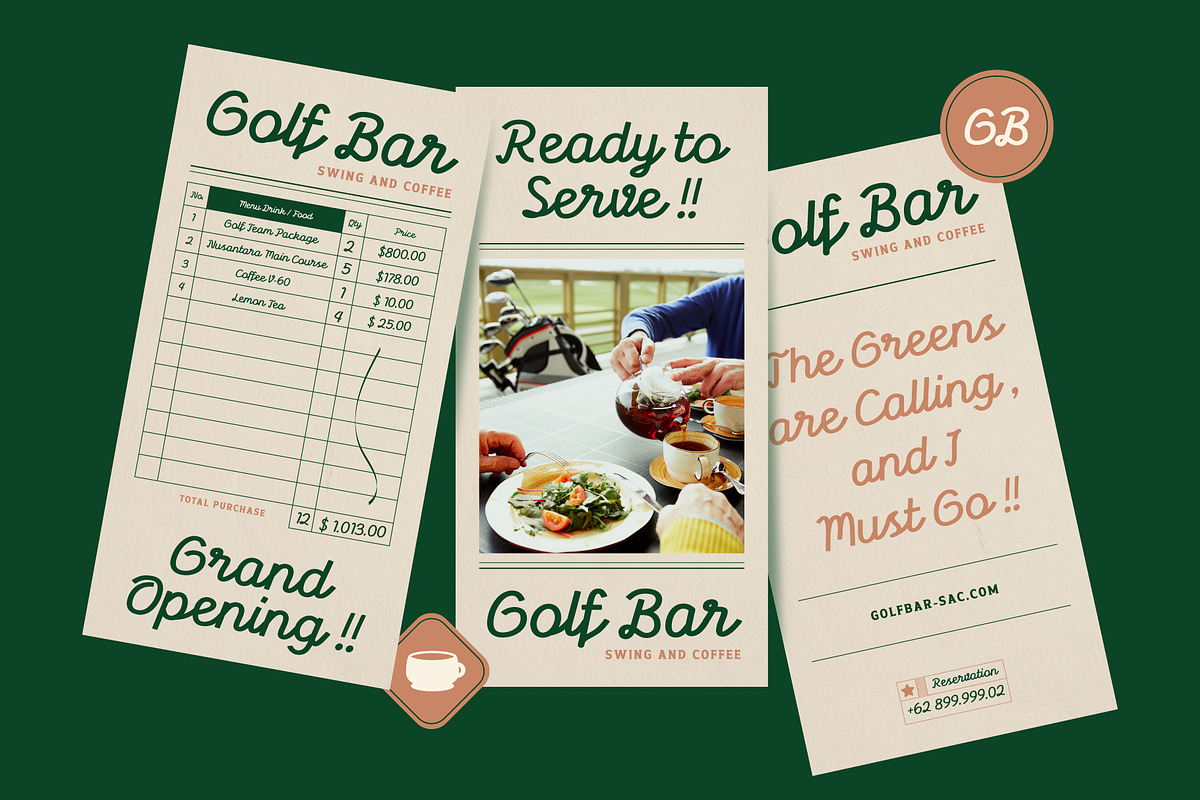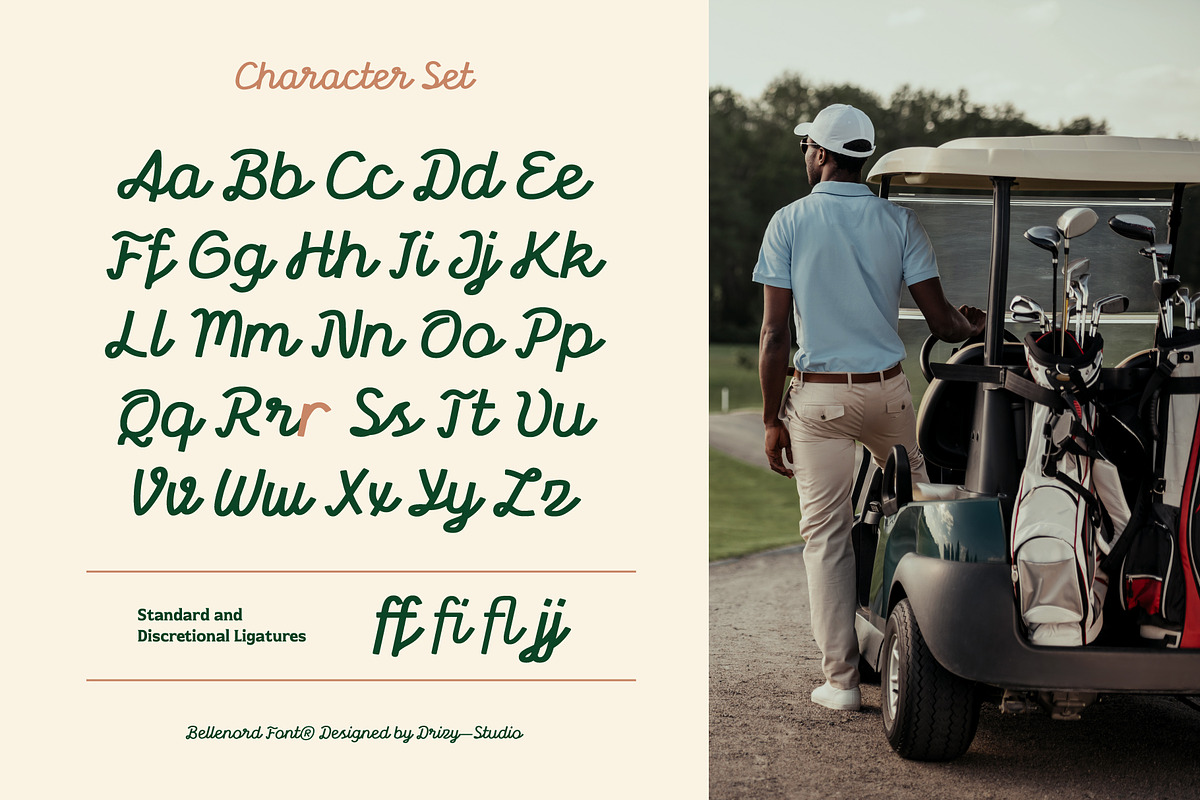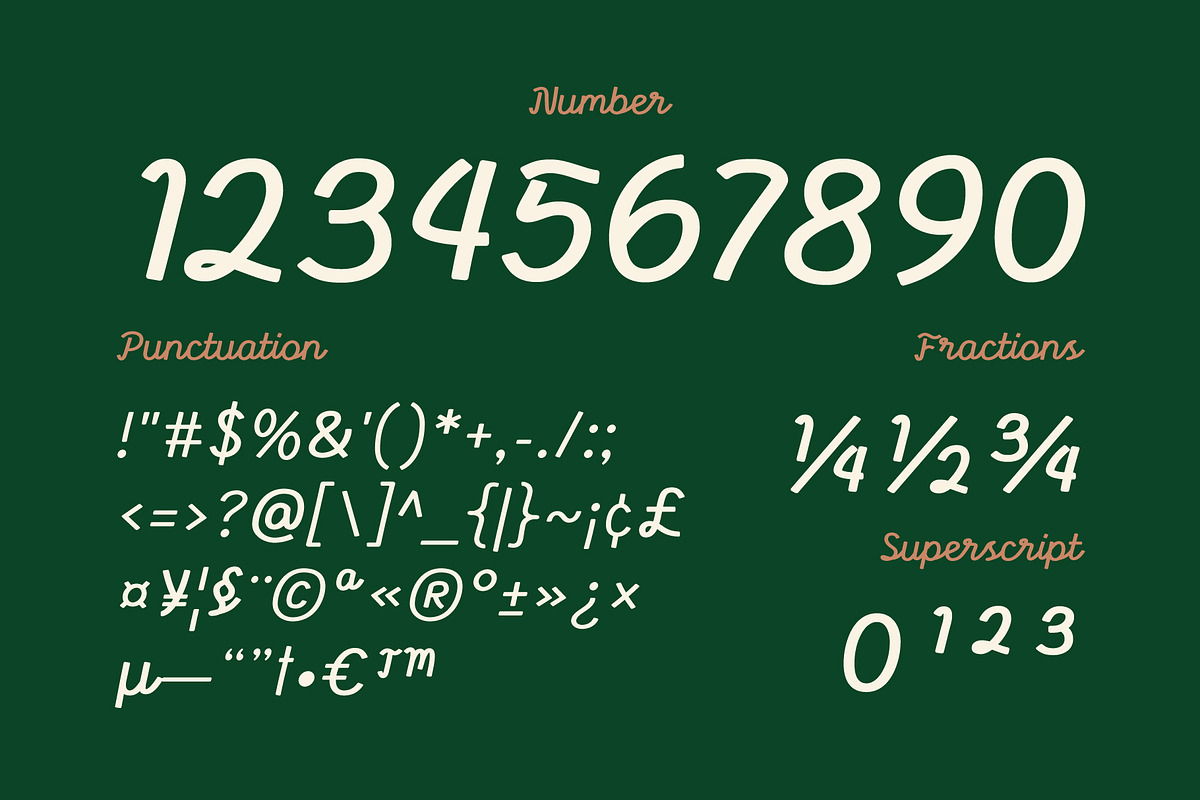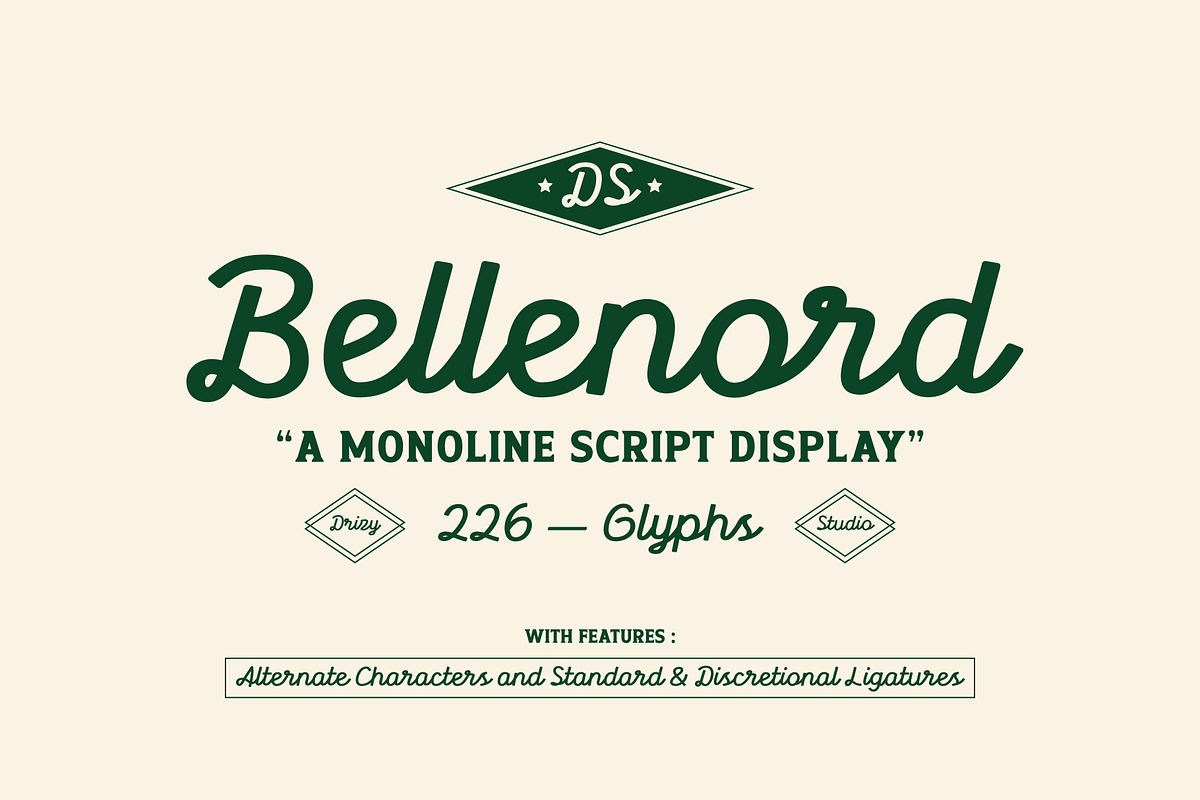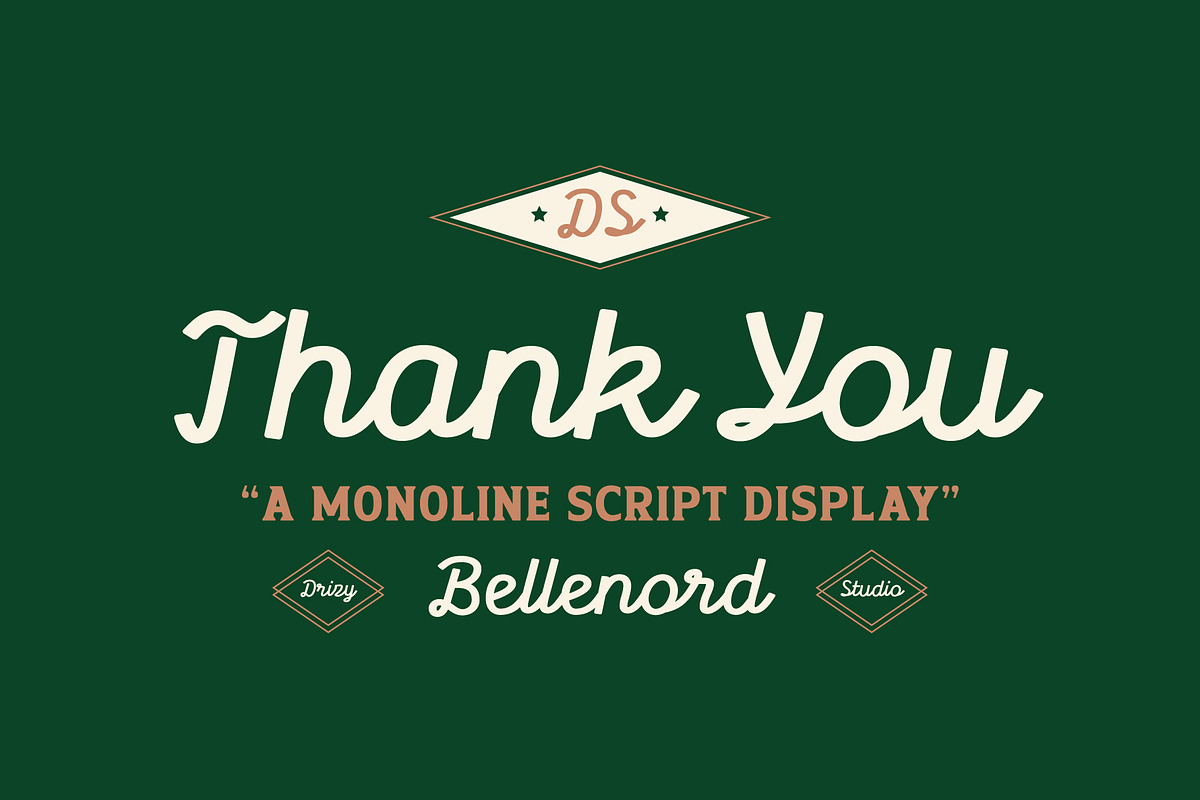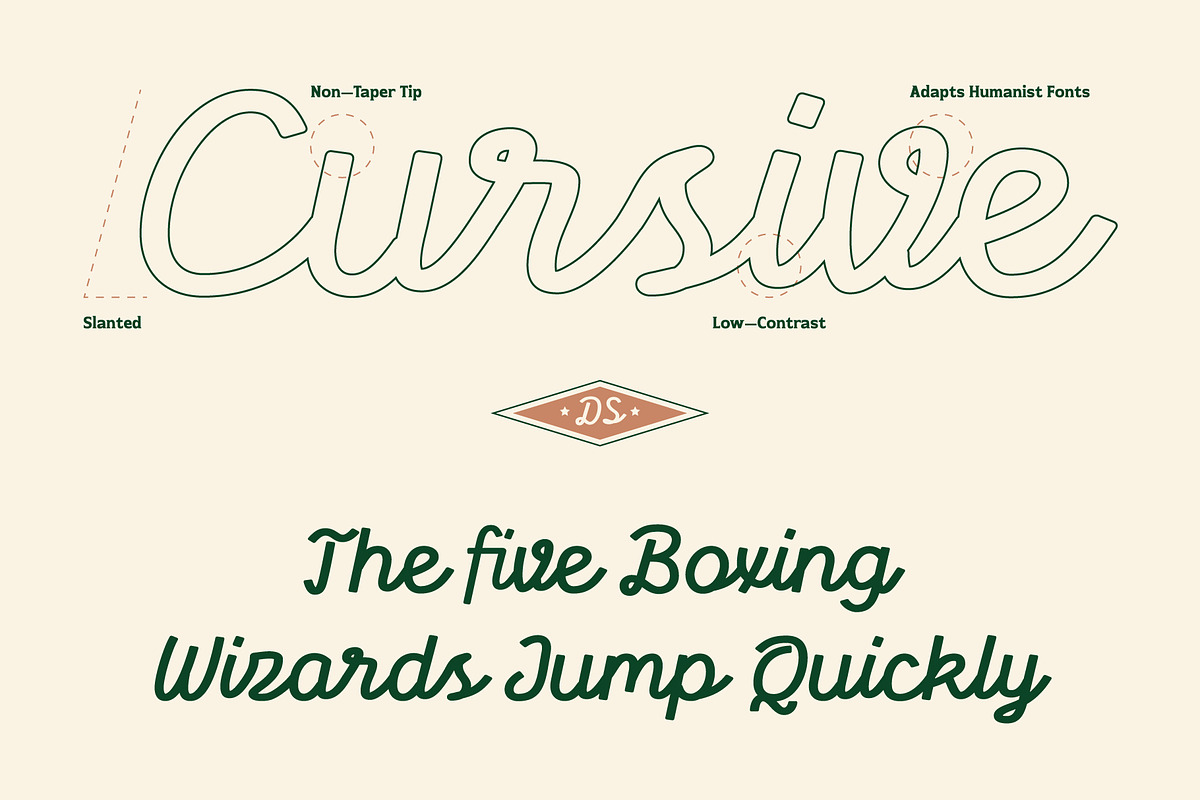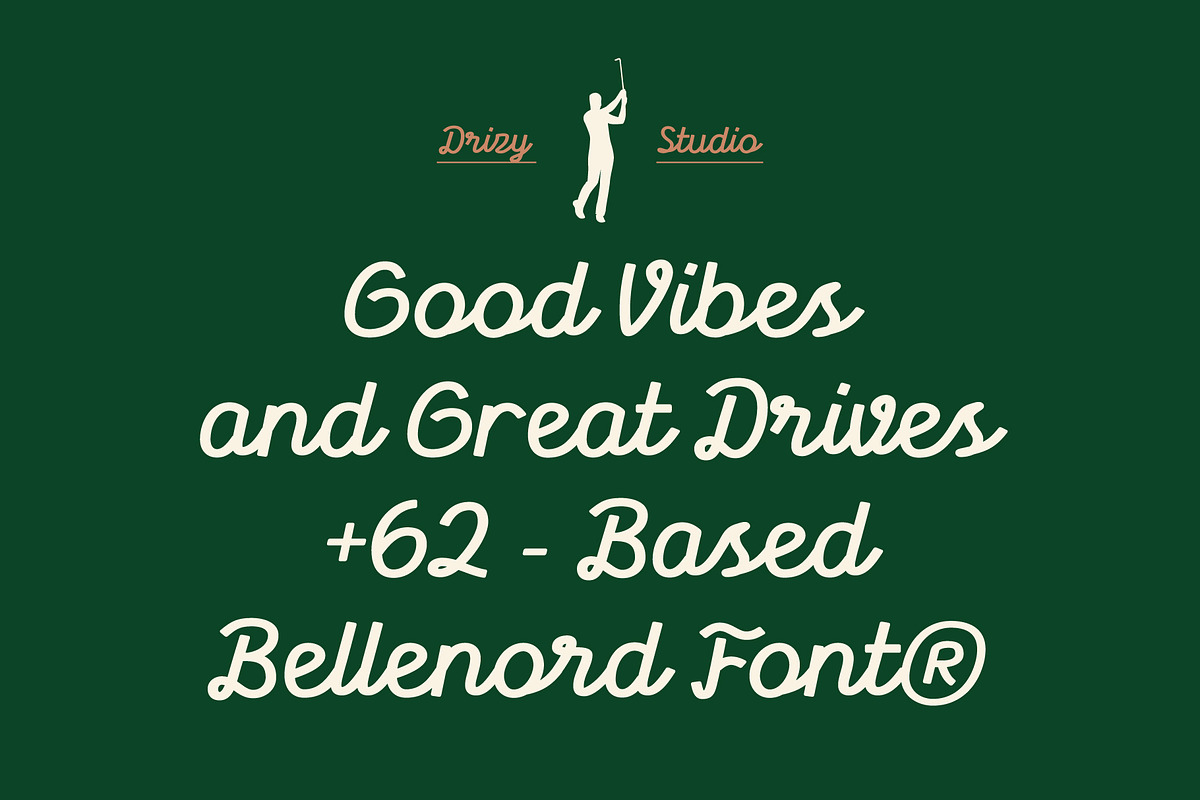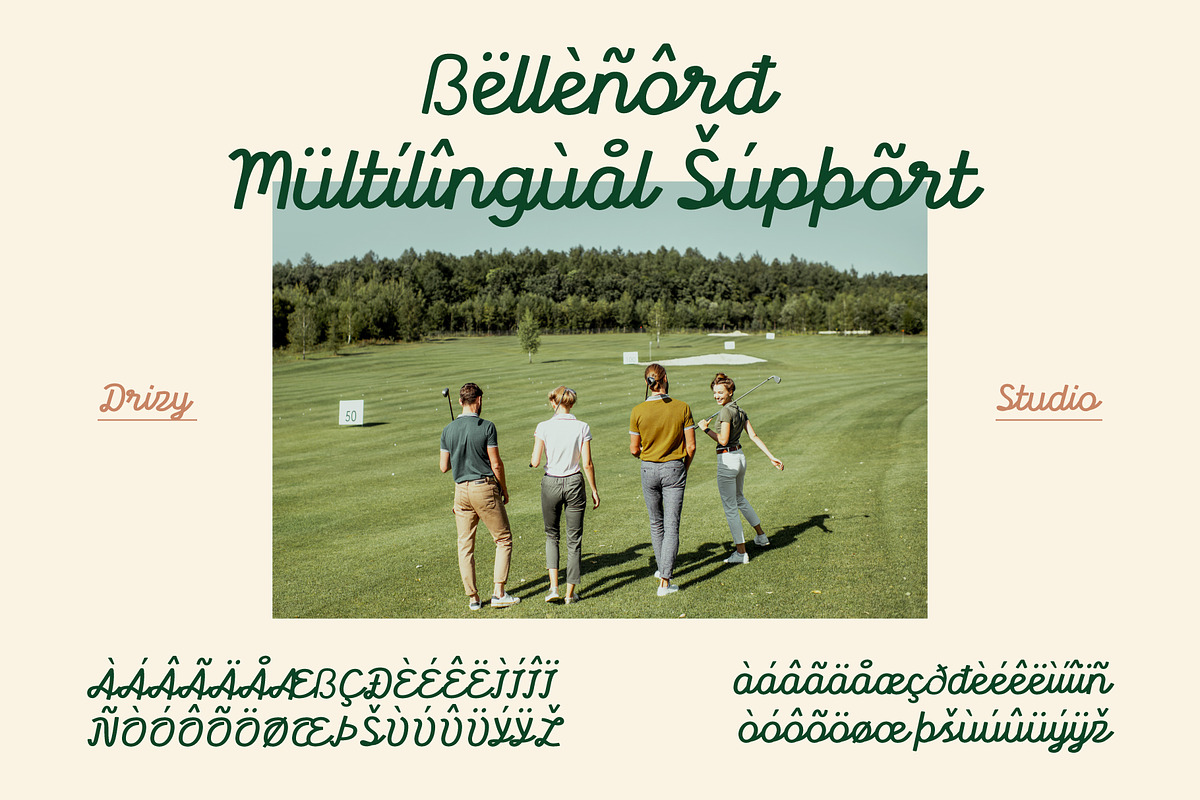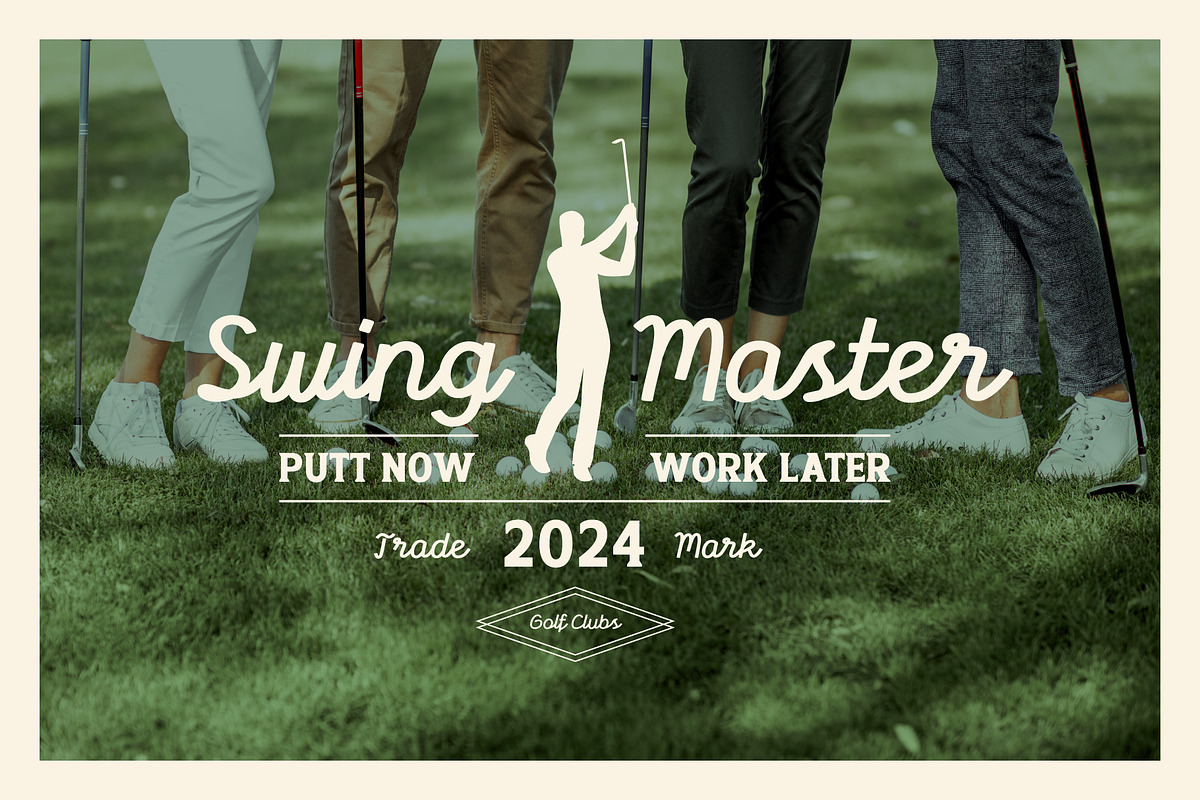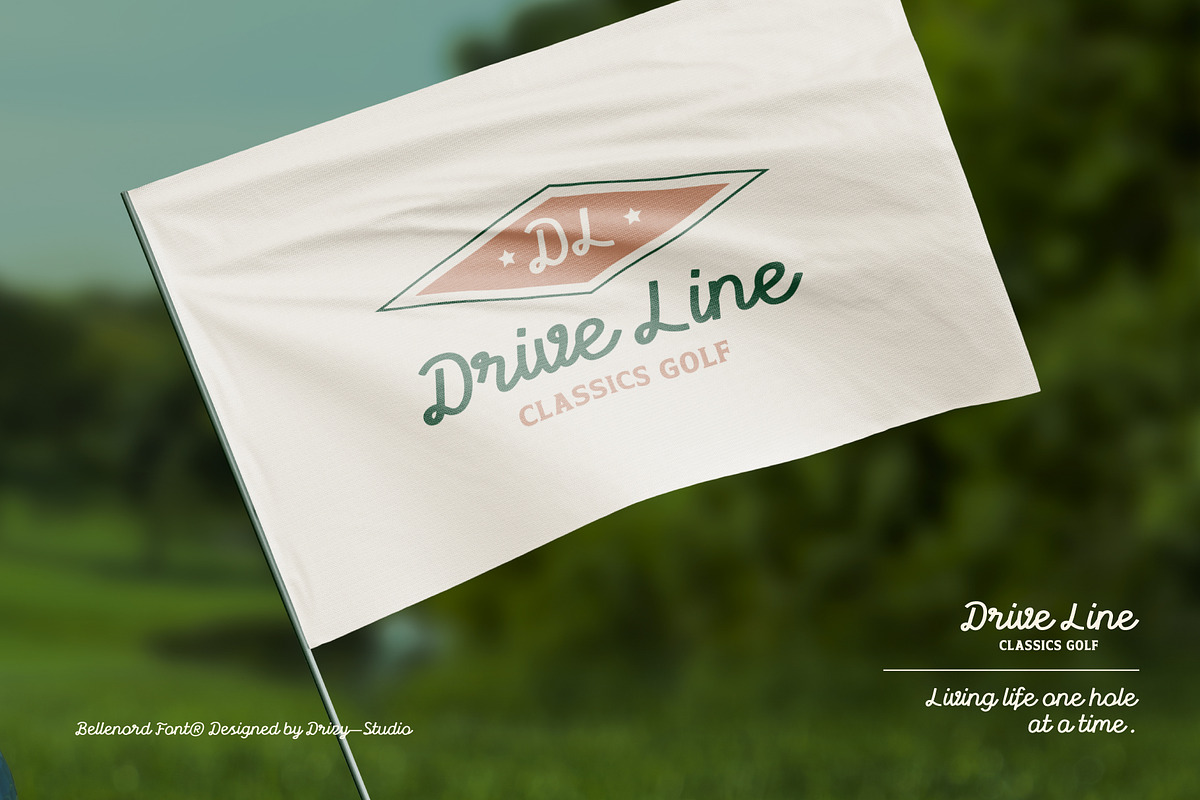
Bellenord – Monoline Script Display
Bellenord – Monoline Script Display Font
Bellenord is a classic Golf – Elegant Sport (Classic Taste) inspired touch. Perfect for embodying the sophistication and tradition of the sport, this font combines graceful curves with a refined aesthetic, making it an ideal choice for upscale golf event invitations, club signage, merchandise, and more. Capture the essence of golf’s elegant sport with Bellenord’s classic taste, and bring a touch of vintage charm to your next project.
Bellenord features:
- Character Set (Uppercase & Lowercase)
- Punctuation & Numbers
- Standard & Discretional Ligatures
- Alternates “r”
Elevate and explore the design possibilities with this Golf – Elegant Sport (Classic Taste) Design Font!